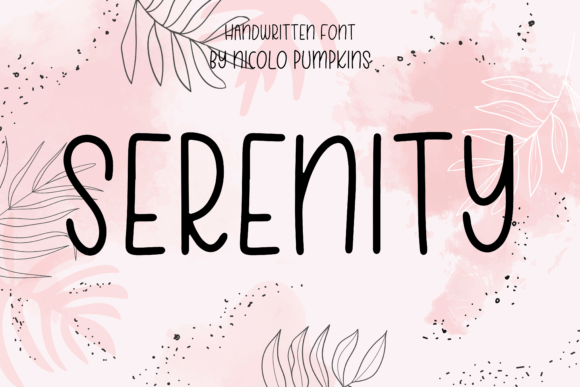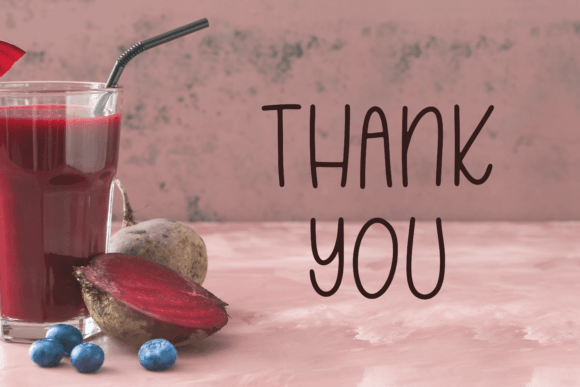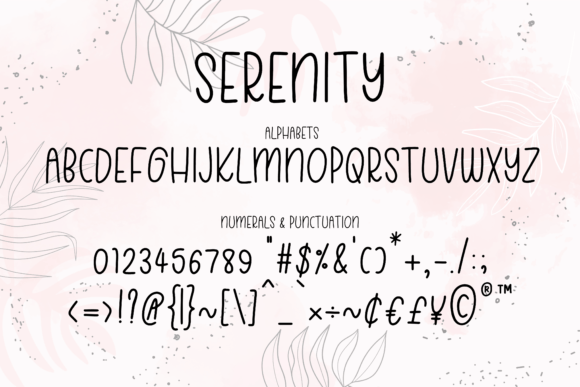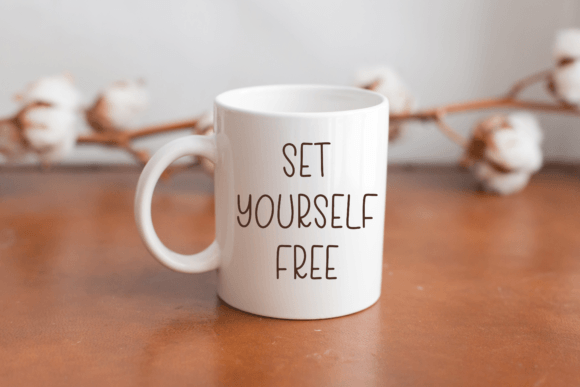
About Serenity Font
“Serenity is a charming and friendly font that adds a touch of cuteness to any design. Perfectly suited for friendly and approachable designs, Serenity can be used on a variety of products, including t-shirts, mugs, tote bags, pillowcases, and more. Its versatility allows it to shine in different contexts, making it an ideal choice for creating quotes, web interfaces, cards, and various digital designs.
The endearing quality of Serenity is evident in its playful and inviting aesthetic, making it a standout choice for designs that aim to evoke a warm and friendly atmosphere. Whether you’re working on personal projects or designing for digital platforms, Serenity is sure to make your creations look stunning.
Imagine Serenity on a cheerful t-shirt design, adding a touch of whimsy to your wardrobe. Envision it on a cozy pillowcase, creating a welcoming and delightful ambiance in any room. With Serenity, you have the creative freedom to infuse friendliness and charm into your designs, making them stand out and leave a lasting impression.
Incorporate Serenity into your design toolkit for a font that not only looks cute and friendly but also enhances the overall appeal of your projects. Let Serenity bring joy and warmth to your designs, making them truly unforgettable!”